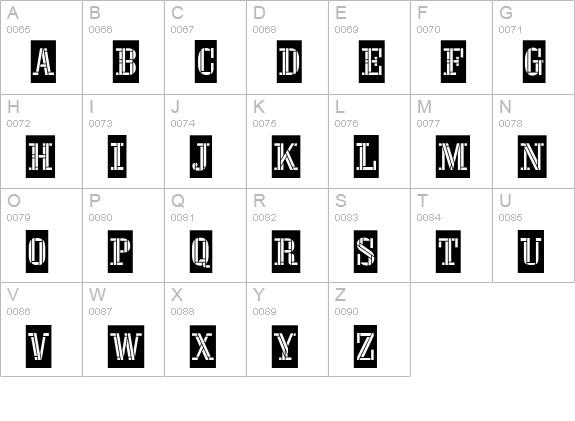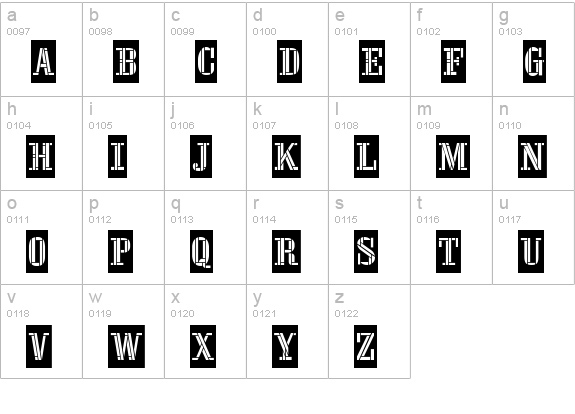
Oaktag Tiles Font Details
Oaktag Tiles font is a beautifully crafted typeface that exudes a sense of elegance and sophistication. Its unique design features a combination of bold lines and intricate details, making it a versatile choice for a wide range of design projects. The font is reminiscent of classic tile patterns, adding a touch of timeless charm to any piece of artwork. One of the best things about Oaktag Tiles font is that it is completely free to download. You can easily access this stunning font at FontsMarket.com, where you can explore its full range of characters and symbols. Whether you're working on a branding project, creating a poster, or designing a website, Oaktag Tiles font is sure to make a bold statement and leave a lasting impression on your audience. Download it today and elevate your design work to new heights with this exquisite typeface.